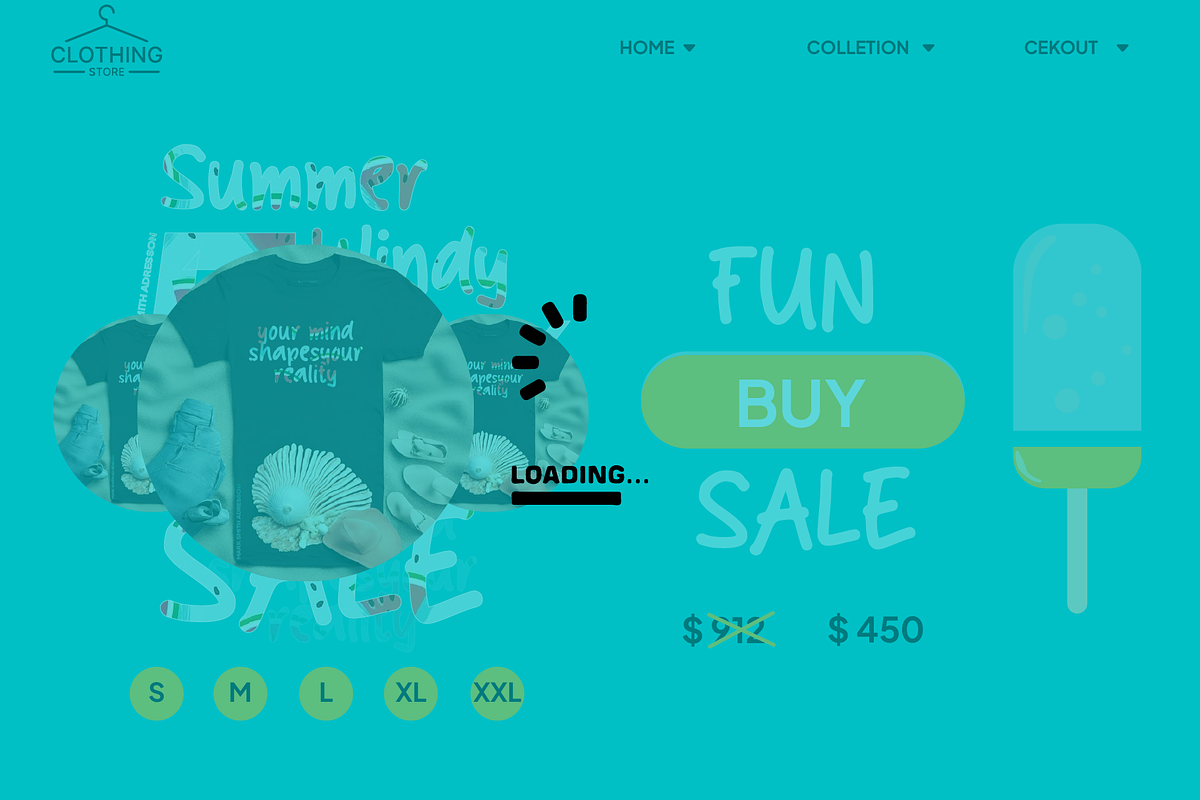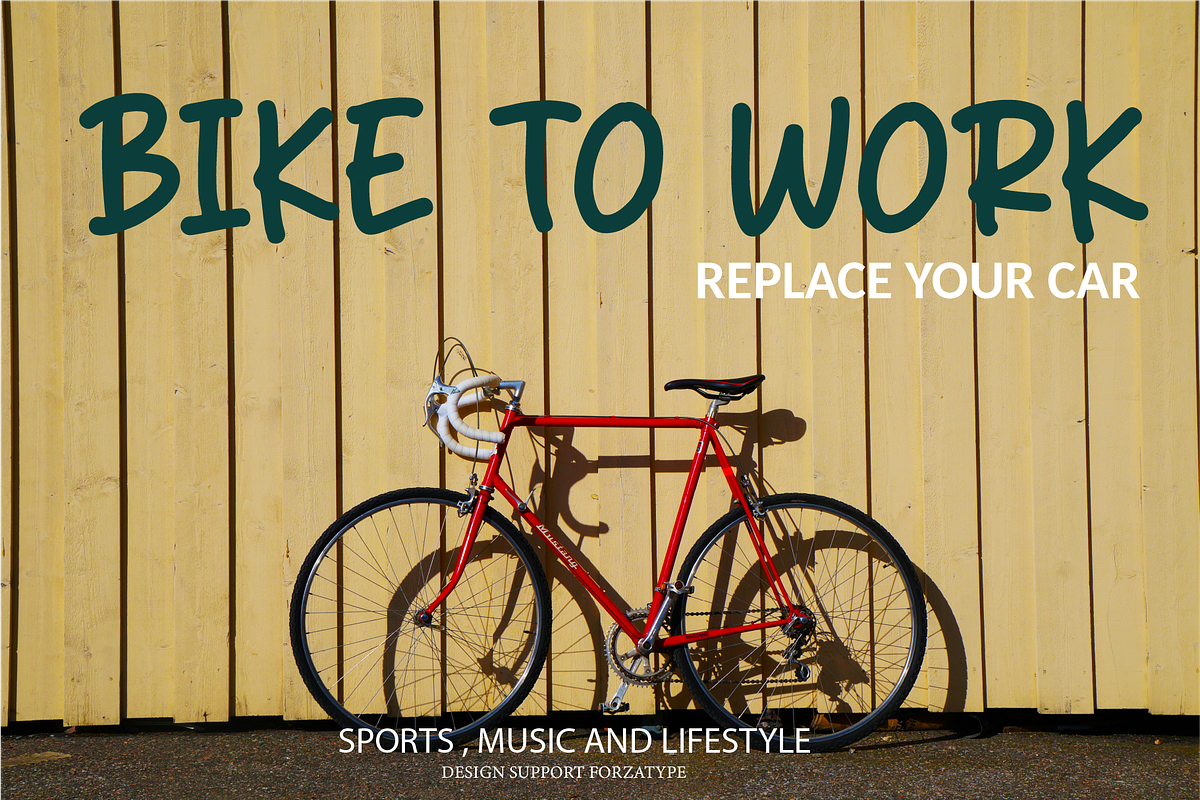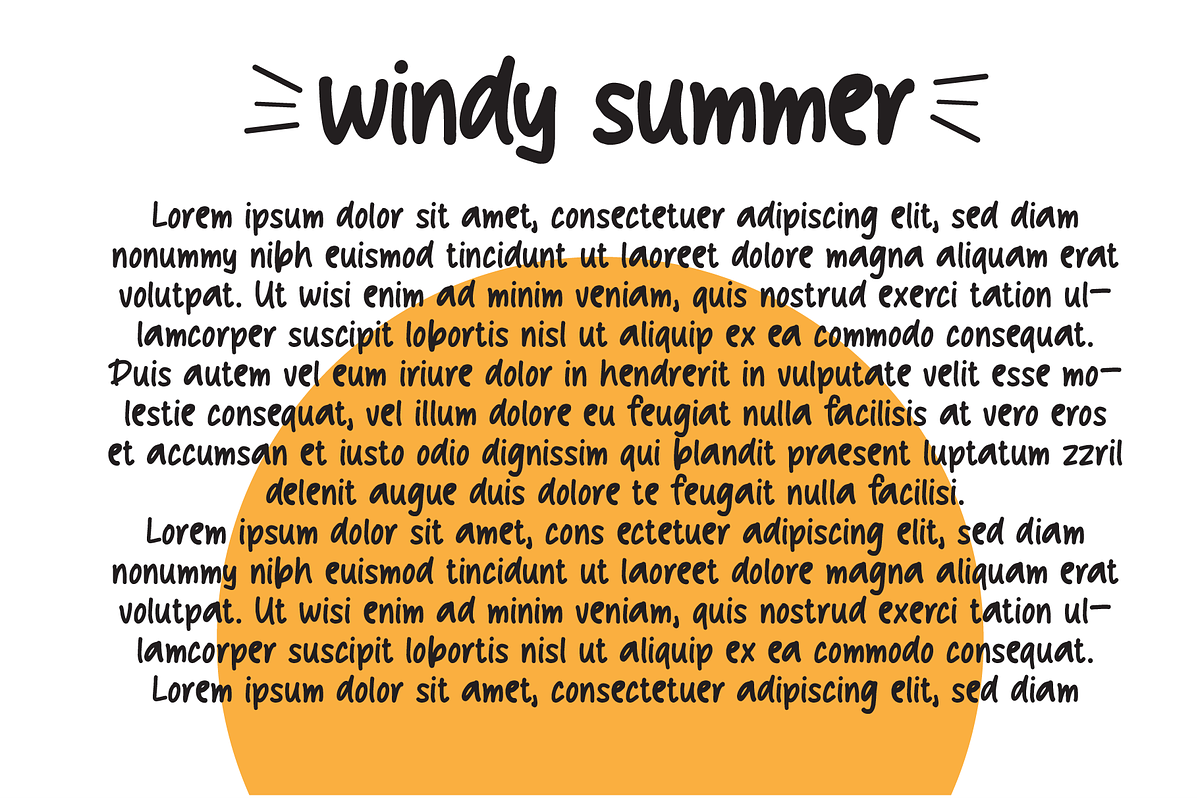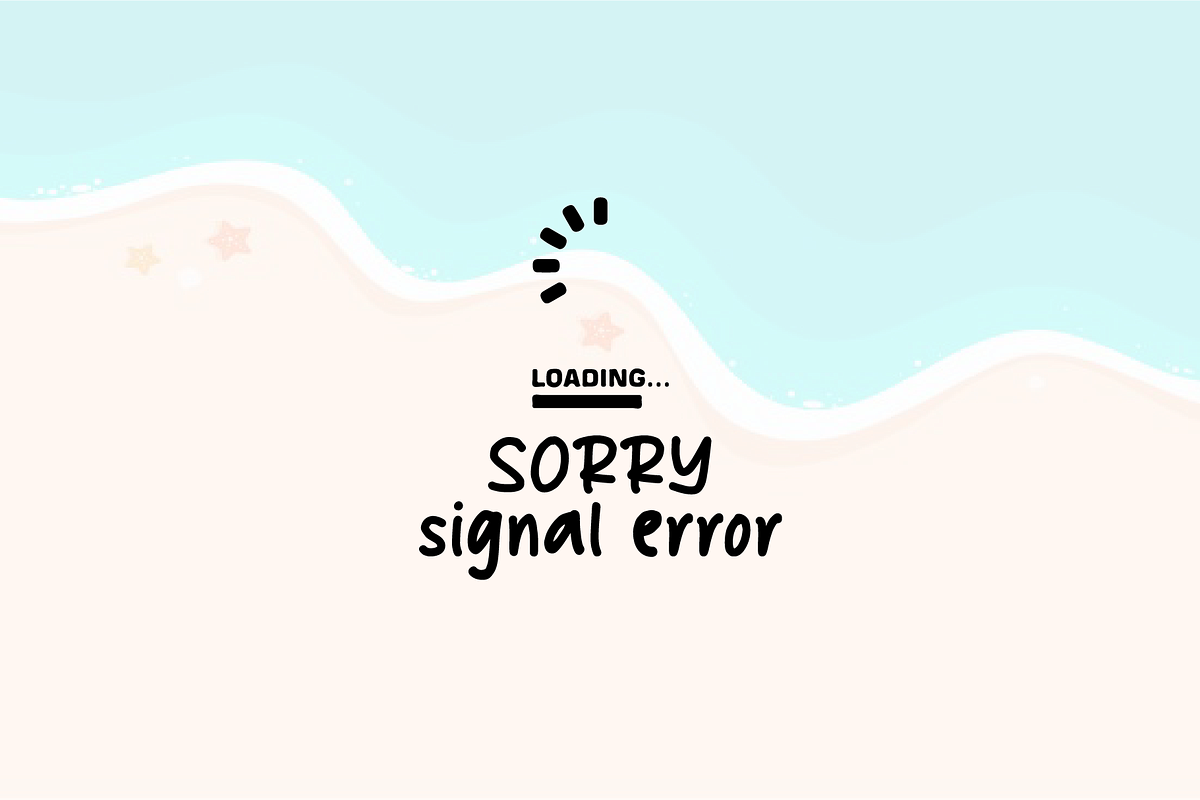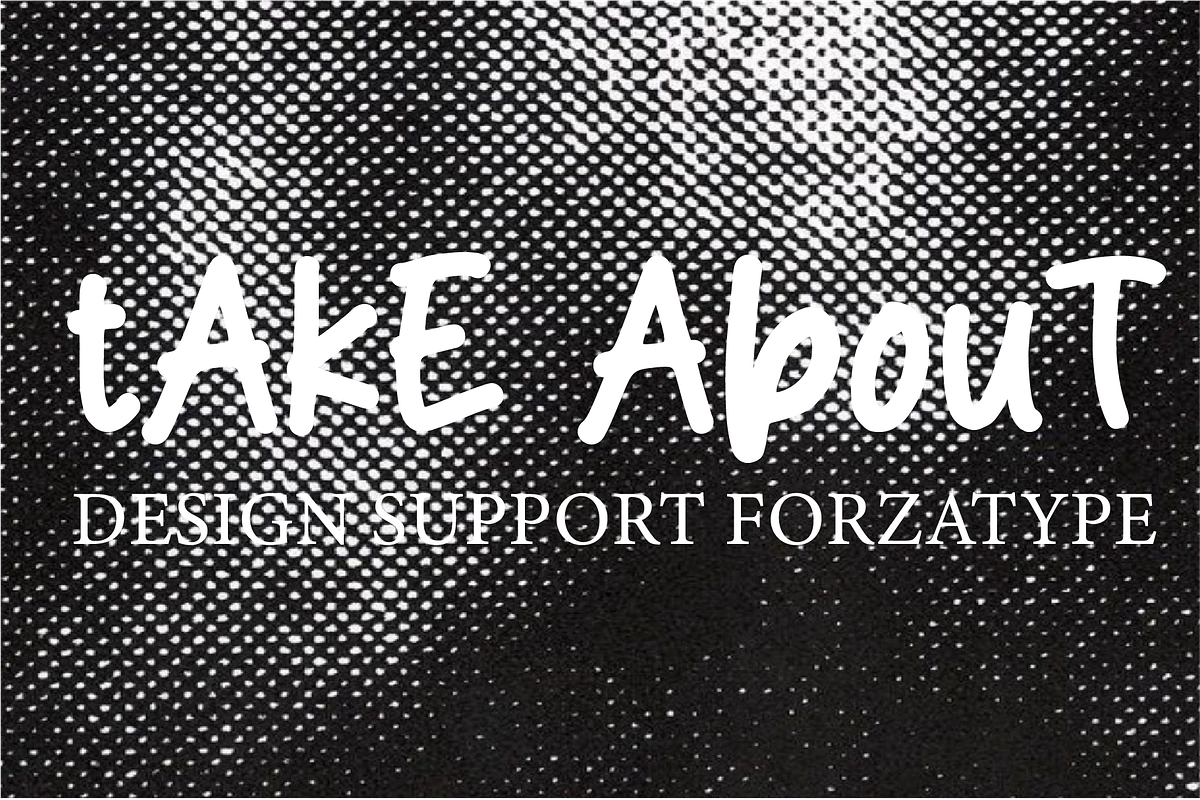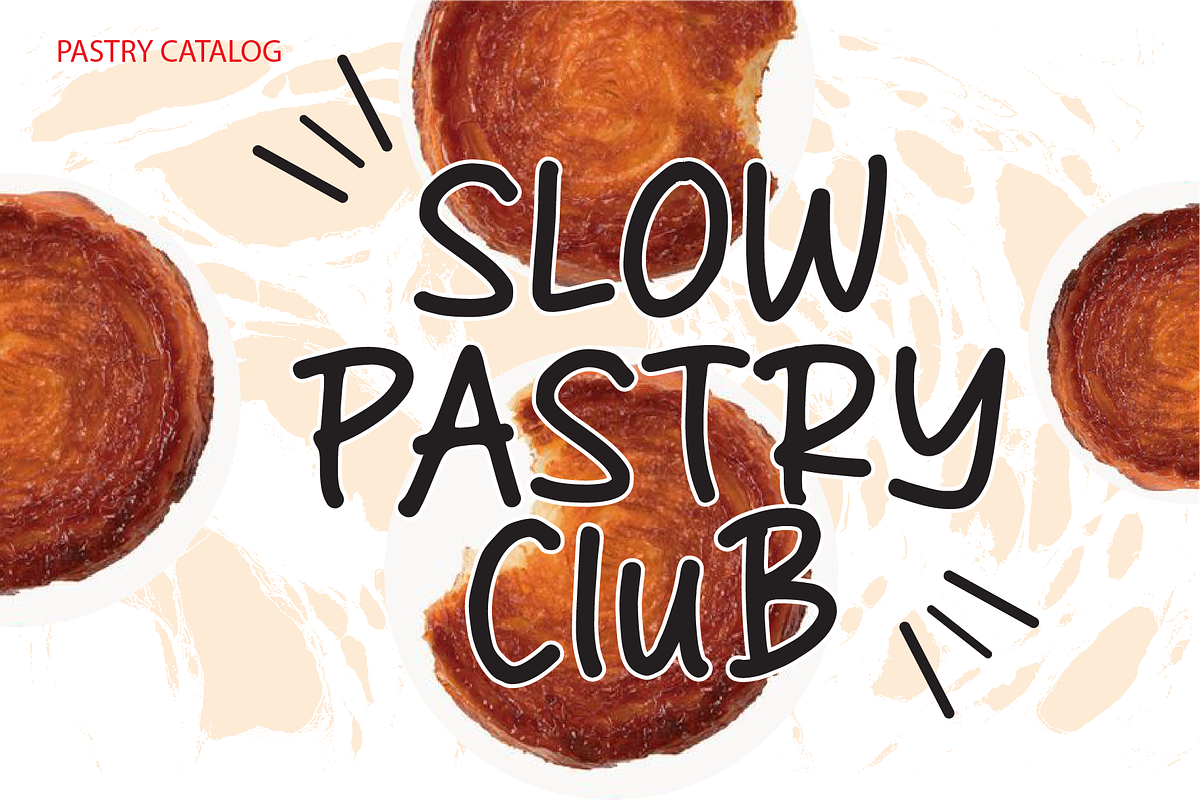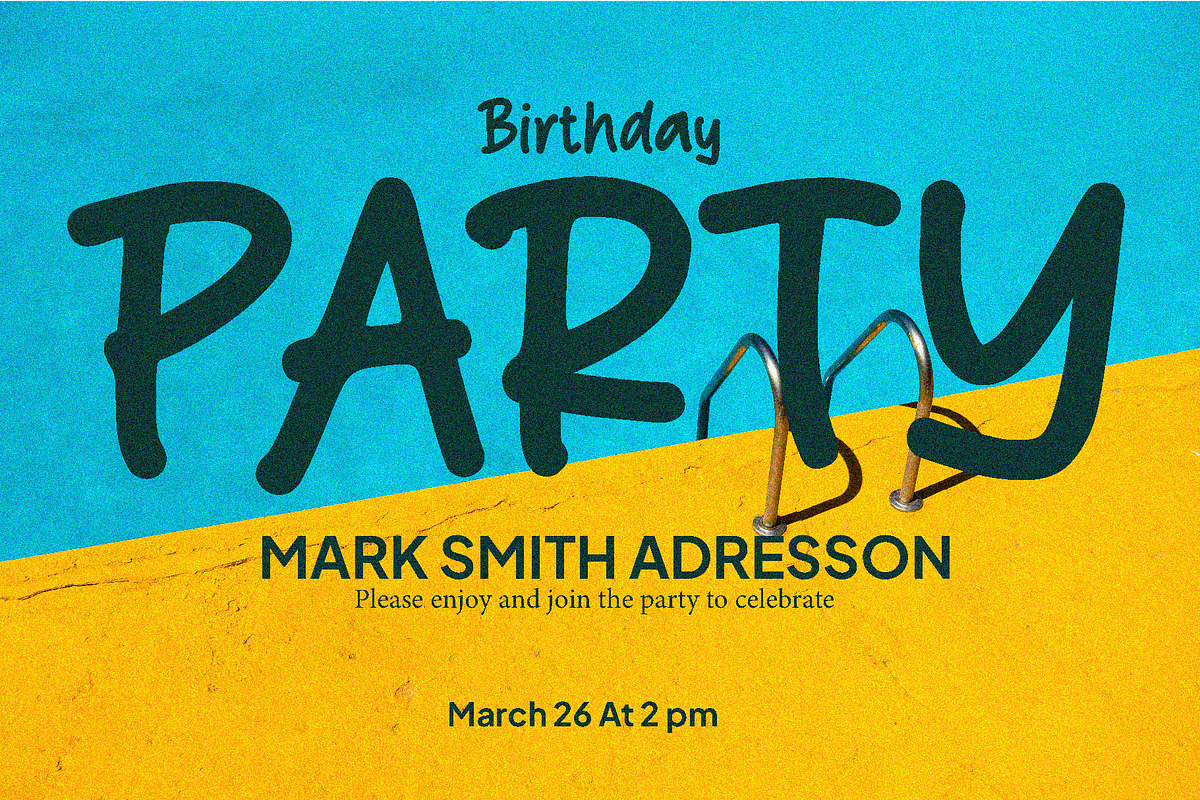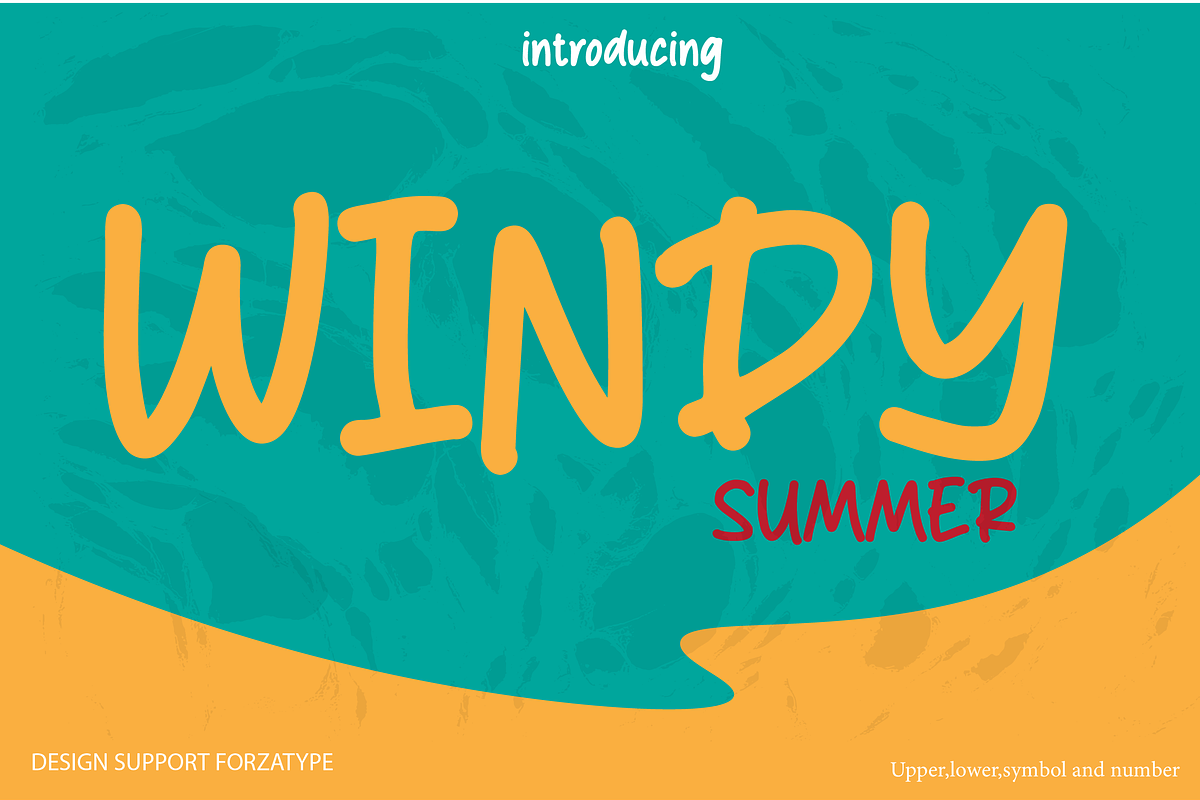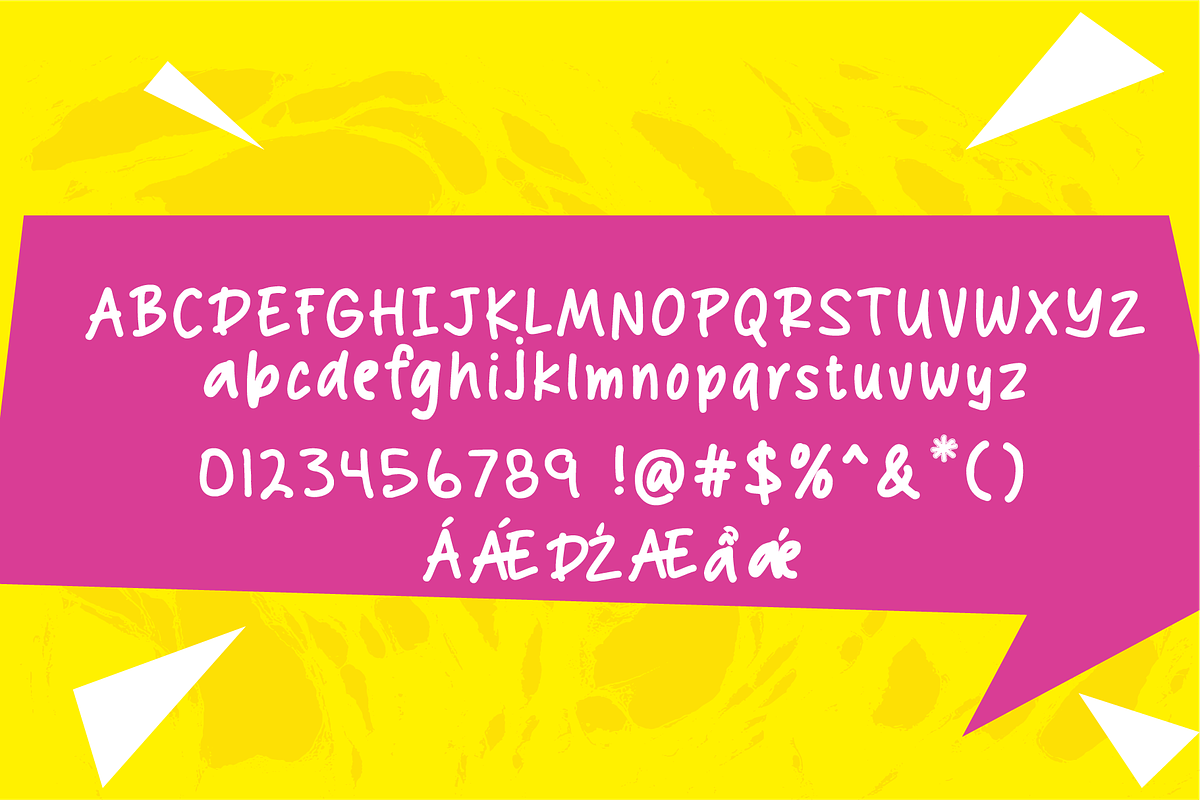
Oh honey Windy Summerfont
oh honey, the name of a letter with affection and love for a woman who accompanies you until the end of time, made for stickers, taglines, logos to identify pleasure in holidays with a cheerful, simple character that still looks luxurious, with a clean touch in each letter, creating joy in the atmosphere. in displays .feat : otf,ttf,cff,sfd,woff and Attachments (zip folder file)